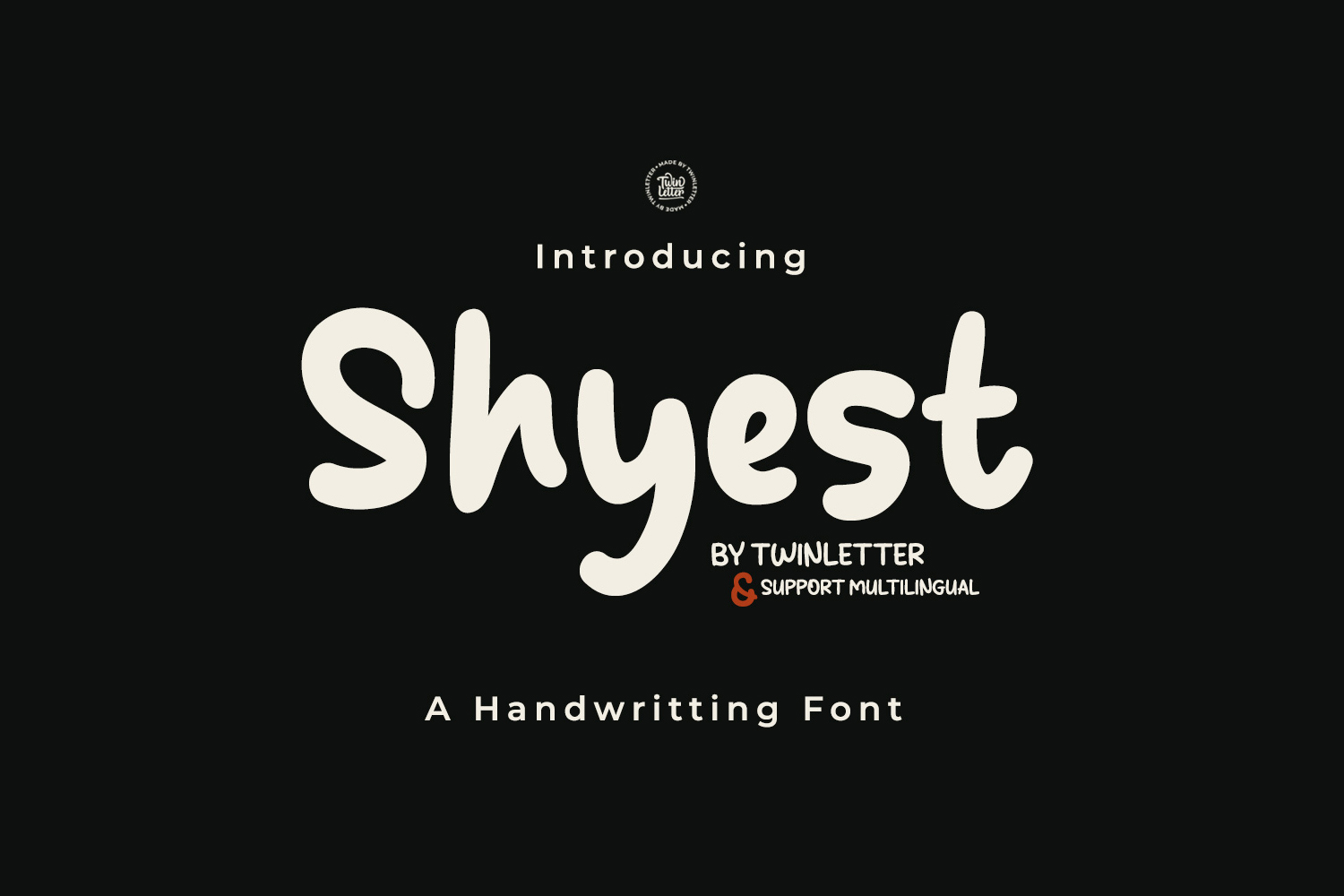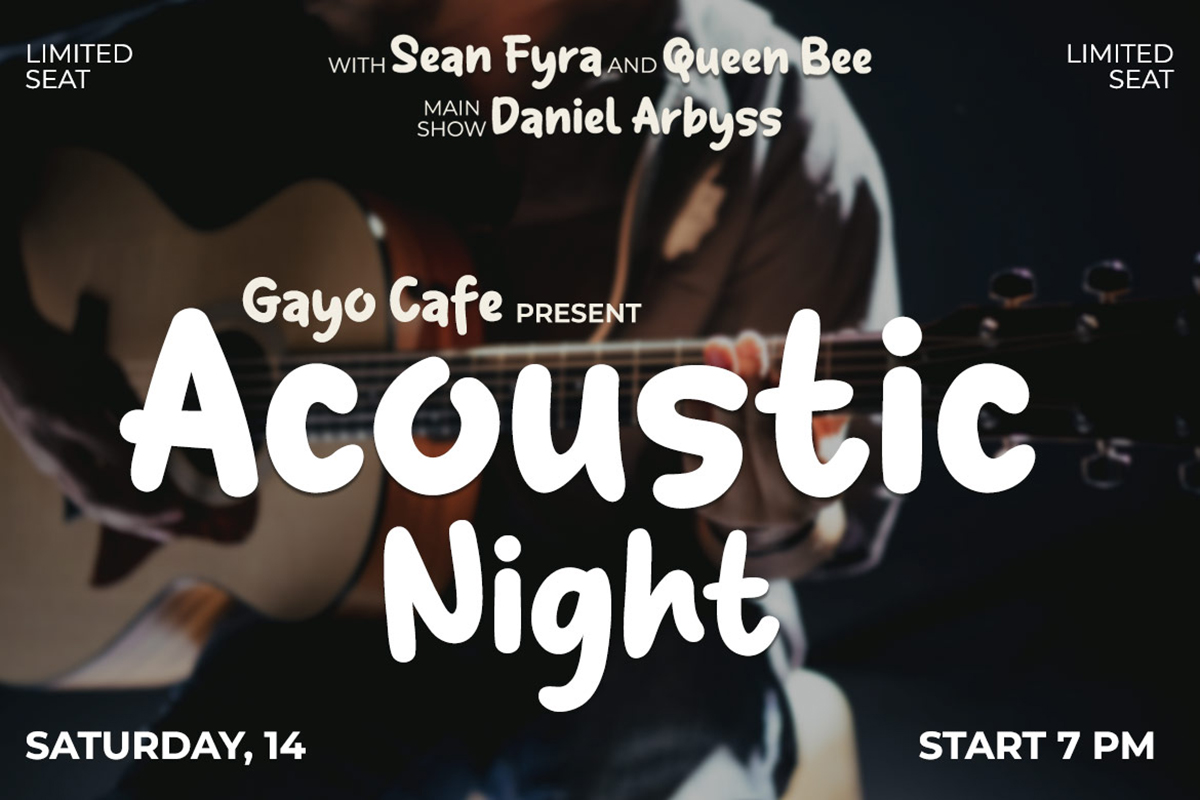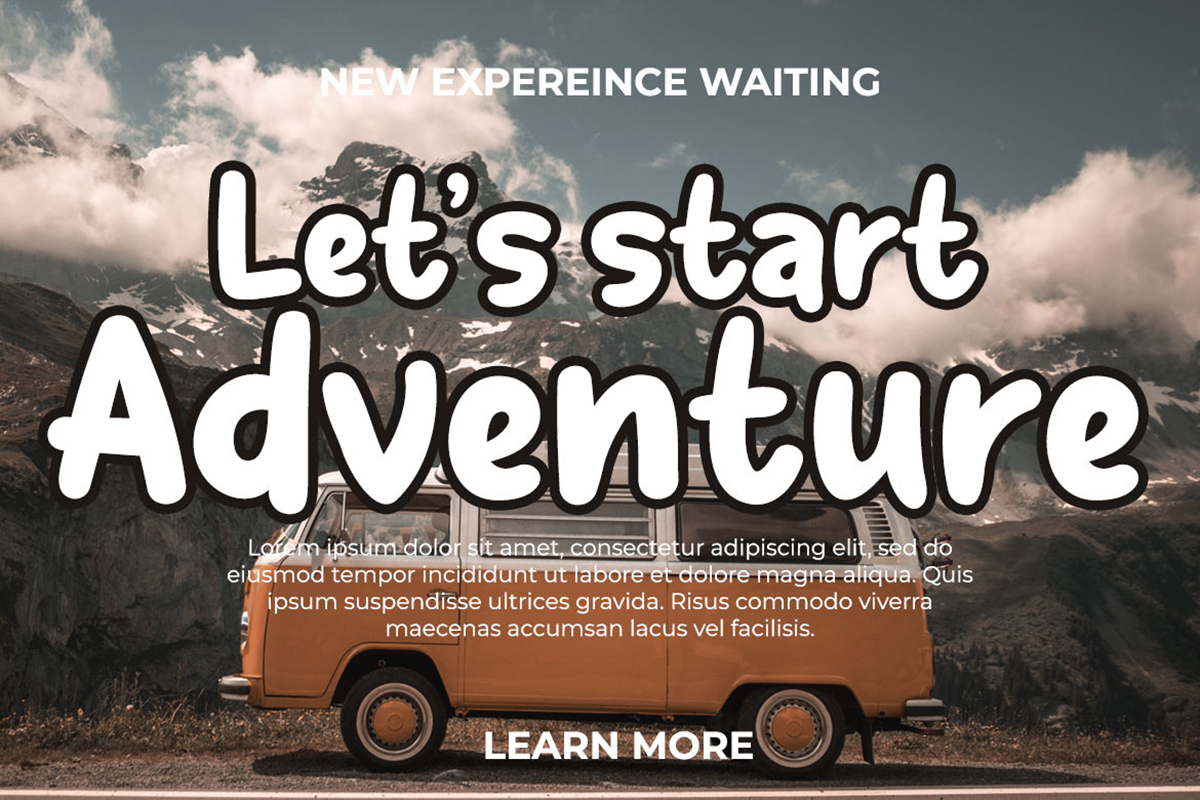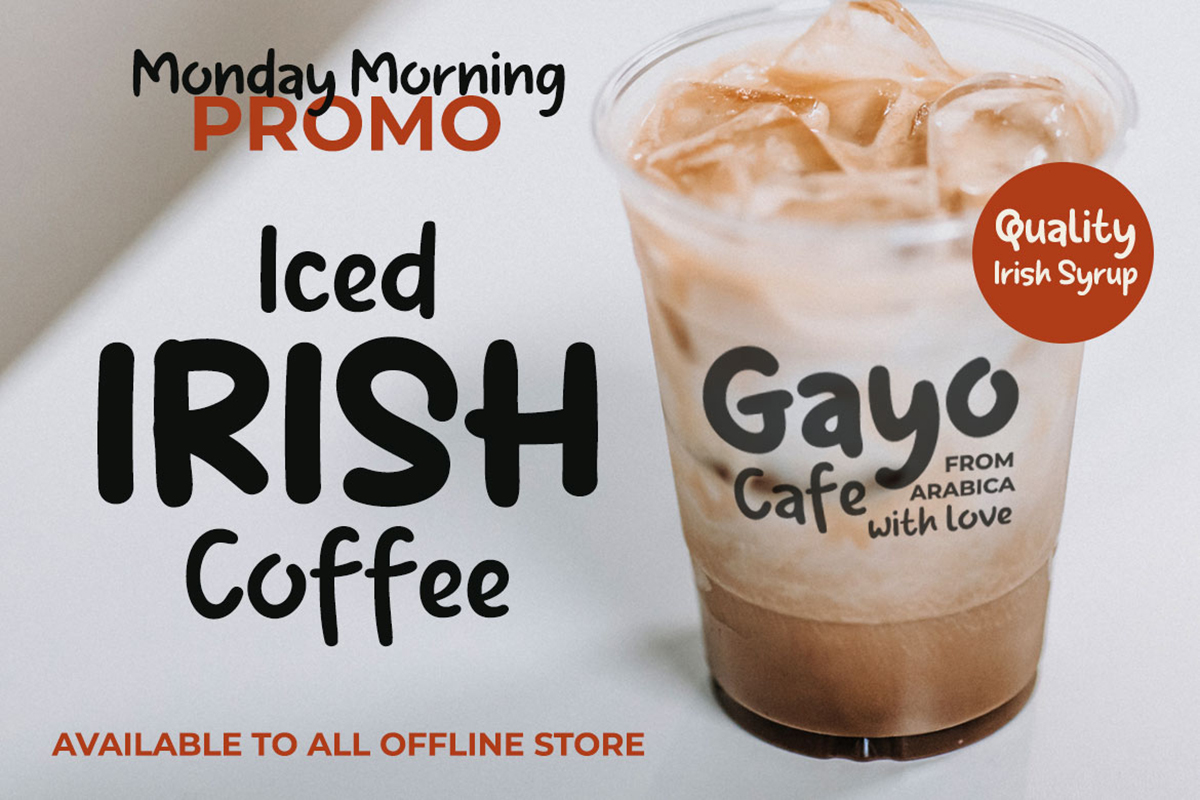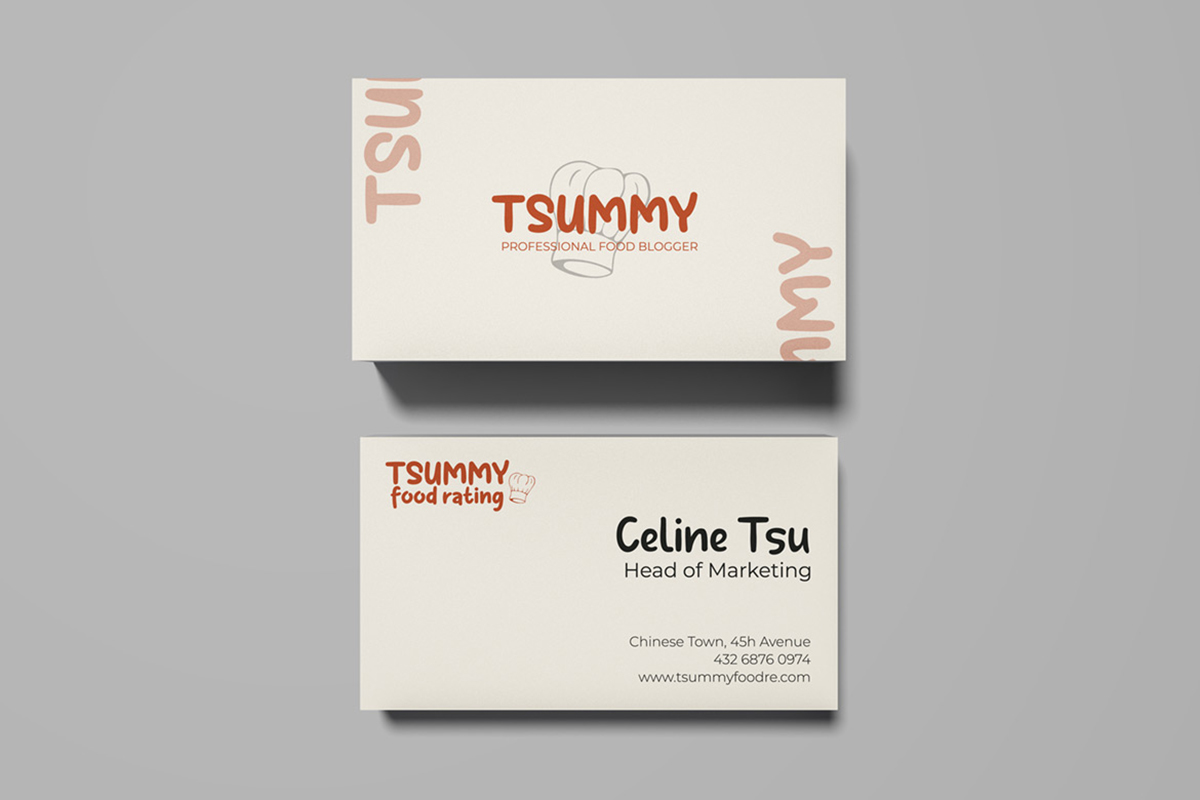
Shyest Free Font
Introducing Shyest Free Font – a charming, trendy, and casual handwritten font that adds a touch of cuteness to any project. Whether you seek fonts for Instagram posts or elegant calligraphy scripts for DIY endeavors, this font is your gateway to transforming every creative idea into a true masterpiece of art! Embrace the charm of “Shyest” and witness how it enhances your visual creations with its delightful allure. This free typeface was designed by a talented Twin Letter. If you like it don’t forget to check out the full version.